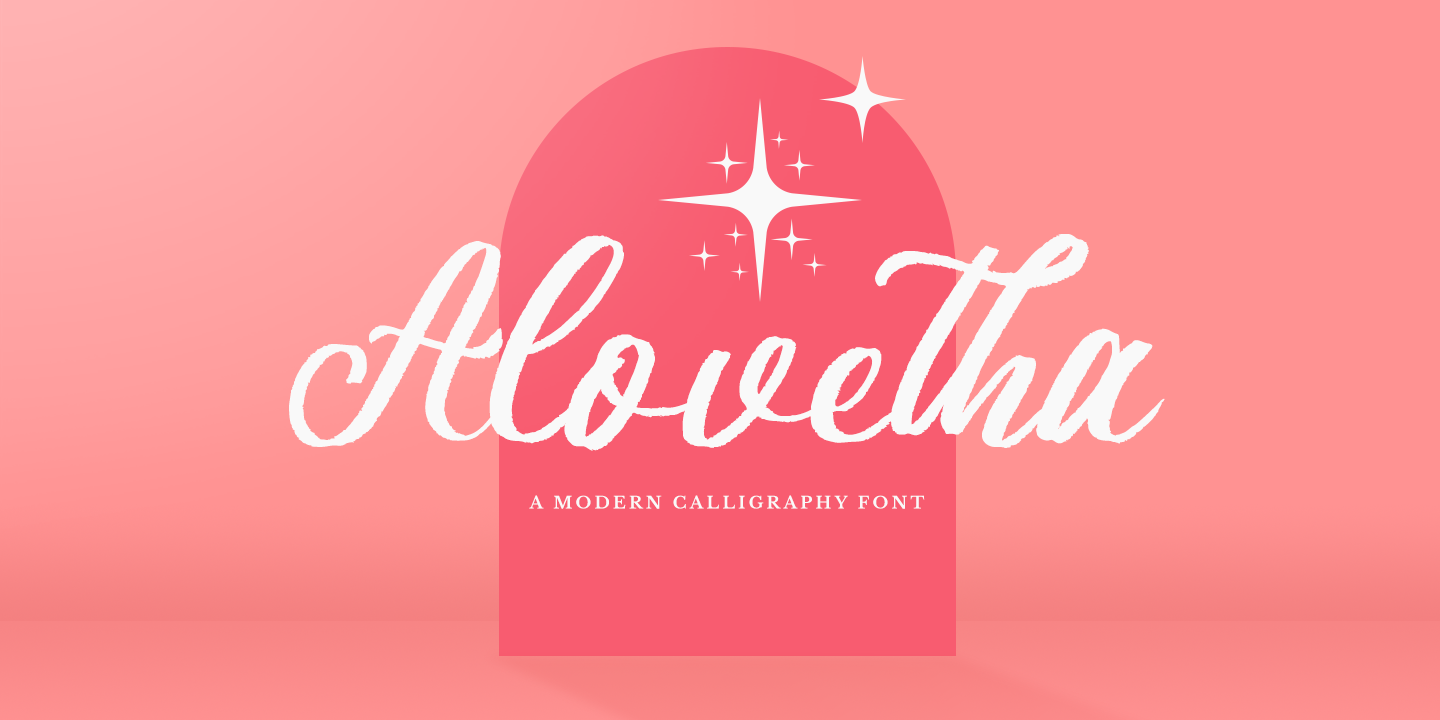
The Alovetha Font excels in various design applications including romantic love story branding, heartfelt wedding marketing, passionate romance novel communications, intimate relationship counseling materials, love-themed boutique identities, romantic Valentine's promotions, heartfelt anniversary signage, passionate poetry packaging, romantic lifestyle documentation, and distinguished love projects that demand romantic authenticity and heartfelt sophistication.
What makes the Alovetha Font exciting is its passionate embodiment of deep love and romantic devotion through letterforms that capture the essence of heartfelt affection and the tender beauty of intimate emotional connection. This typeface demonstrates exceptional warmth through carefully crafted characters that suggest the flowing grace of love letters, the gentle curves of romantic embrace, and the emotional depth that makes true love so spiritually meaningful and emotionally transformative. The font's love personality makes it perfect for romantic brands and relationship-focused organizations seeking to communicate love authenticity, heartfelt emotion, and the kind of romantic passion that creates memorable love experiences through typography that literally embraces with loving tenderness.
The Alovetha Font family typically includes tender weight variations that enhance the romantic aesthetic, featuring heartfelt styling options and extended character sets optimized for love communications and relationship applications. These family options often include romance-inspired alternates, love symbols, and passionate decorative elements that provide designers with comprehensive tools for creating authentically romantic typography that celebrates love connections while maintaining contemporary design appeal and emotional credibility.
Romance professionals and relationship organizations consistently select Alovetha Font Free Download for projects requiring typography that communicates love authenticity and romantic sophistication. This typeface delivers exceptional performance in romantic marketing, love branding, and heartfelt communications where establishing emotional connection and creating passionate atmosphere is essential for romantic engagement. The font's loving character makes it particularly effective for wedding and relationship applications. Download Alovetha Font Free Download today to access this lovingly passionate typeface that transforms romantic communications with its heartfelt elegance and love sophistication, creating compelling romantic experiences that honor the magnificent power of true love while celebrating the tender devotion that defines authentic romantic culture and love excellence.